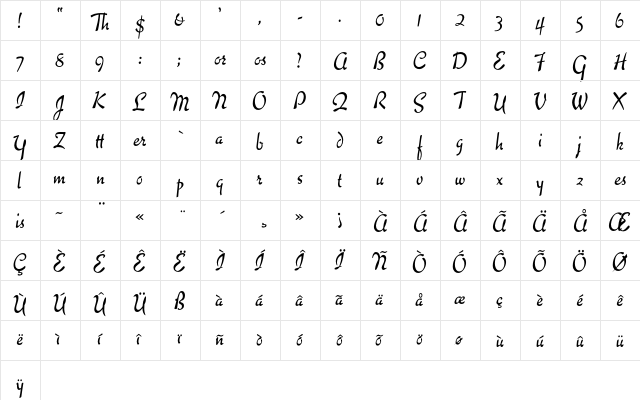
Minneapolis Regular
Design Context for Minneapolis Typeface
Minneapolis takes a measured approach to typography — its balanced proportions and neutral character make it a reliable workhorse for both digital and print work.